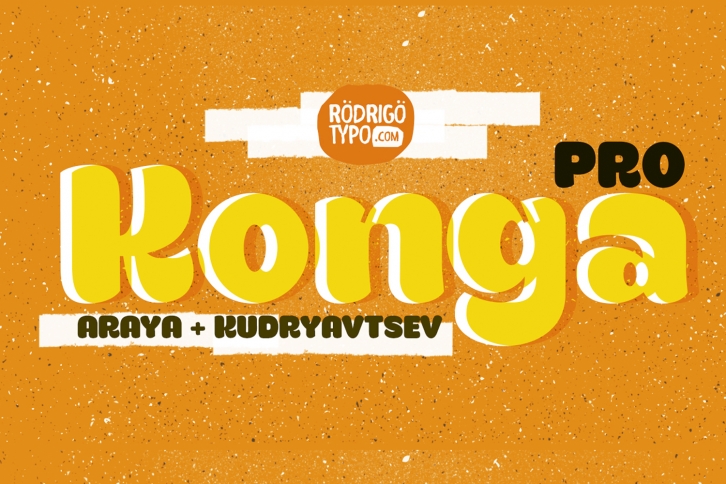
Konga is a gorgeous font that was realeased on July 10, 2017. The font can be used in many style contexts and design environments. Perfect for invitations, magazines, websites, logos, and more! It was designed by RoTypo and the file size is 4.79 MB. Thanks for checking out this font!